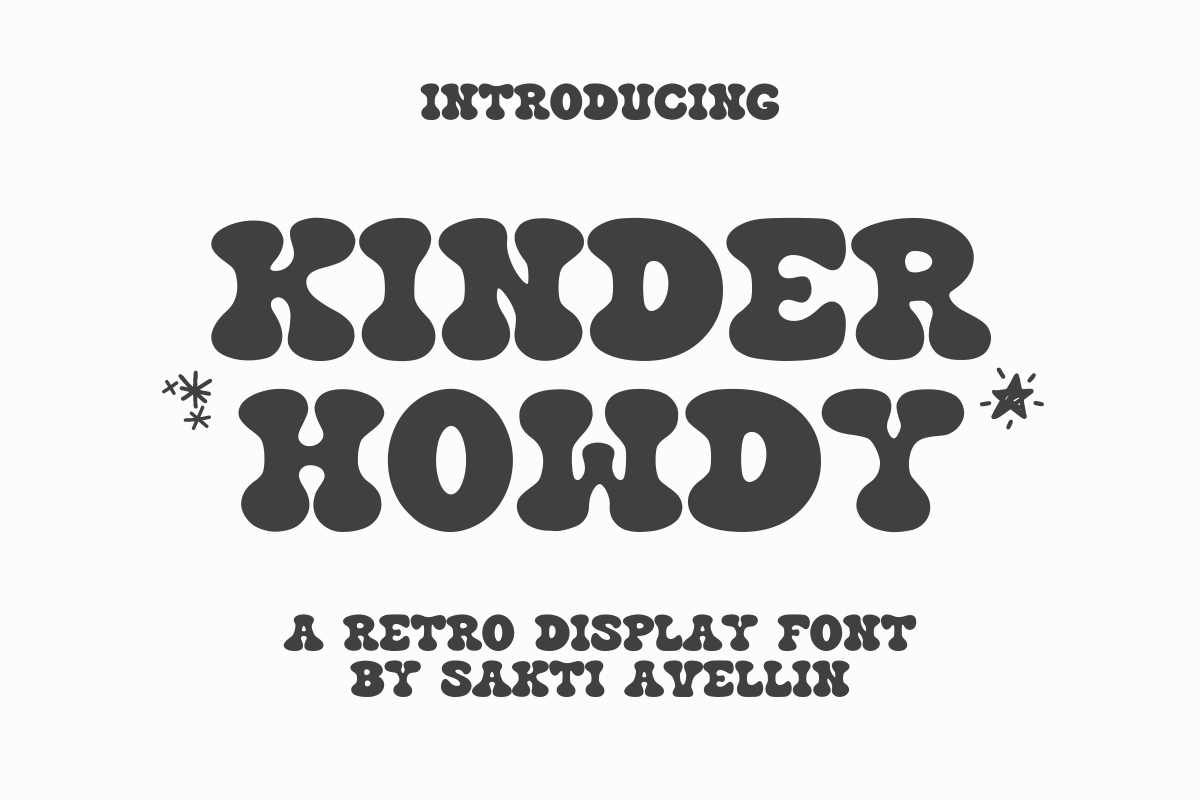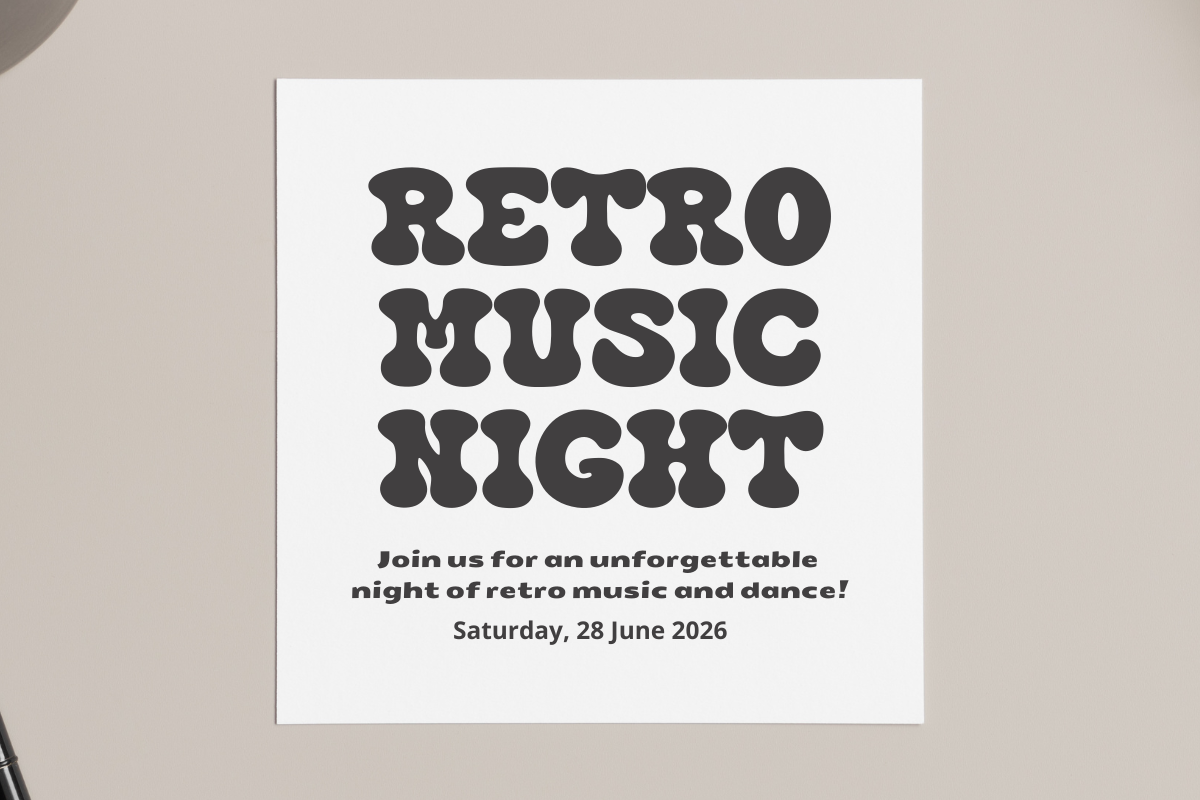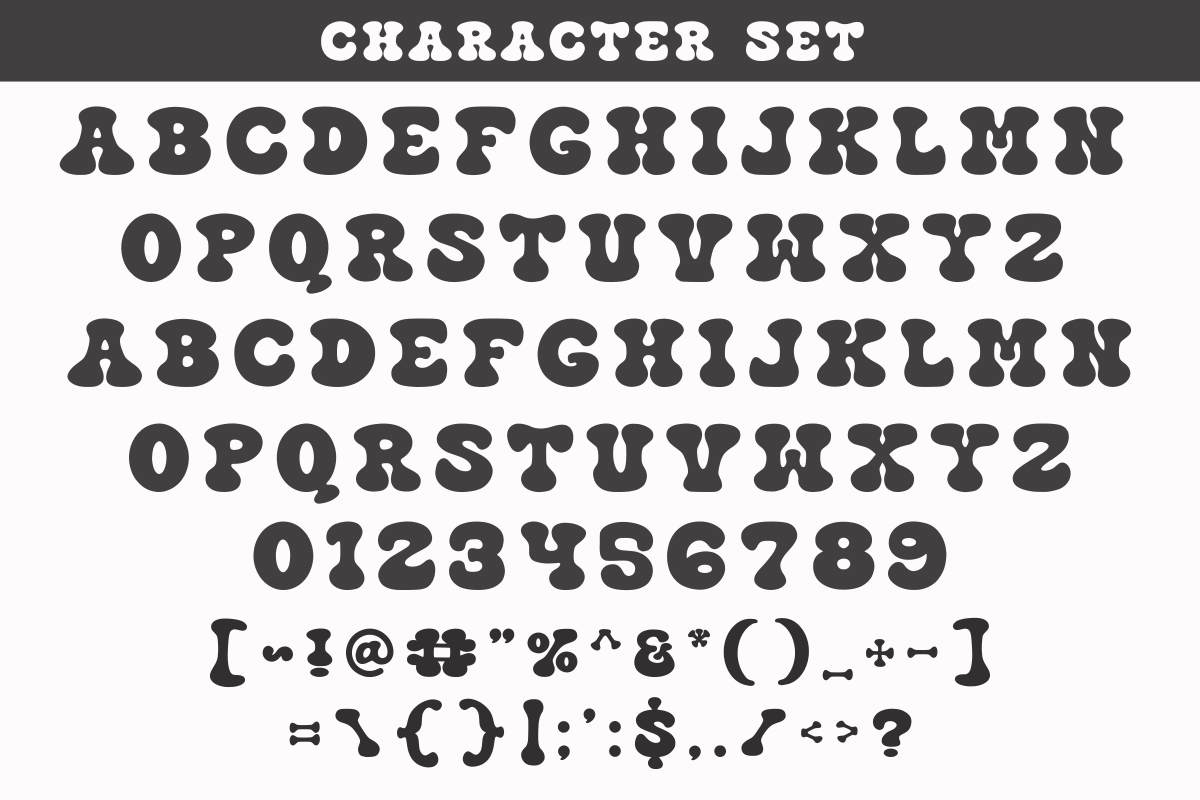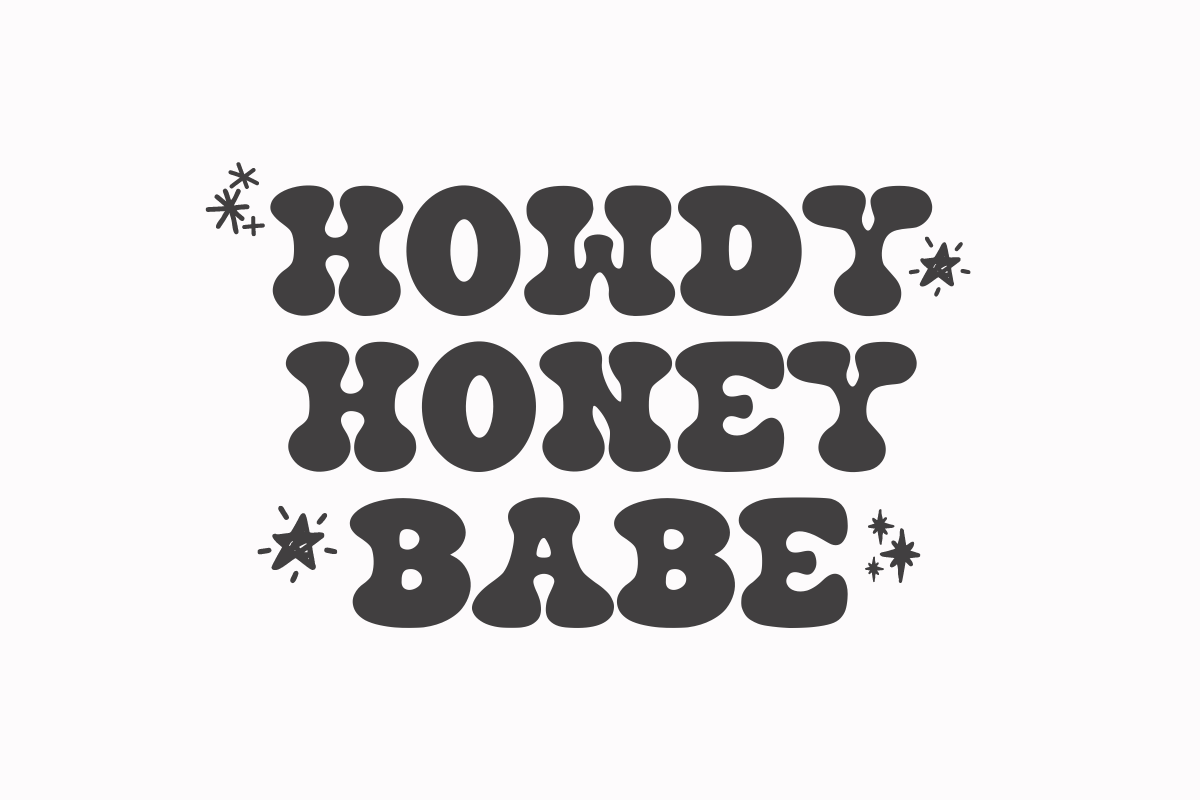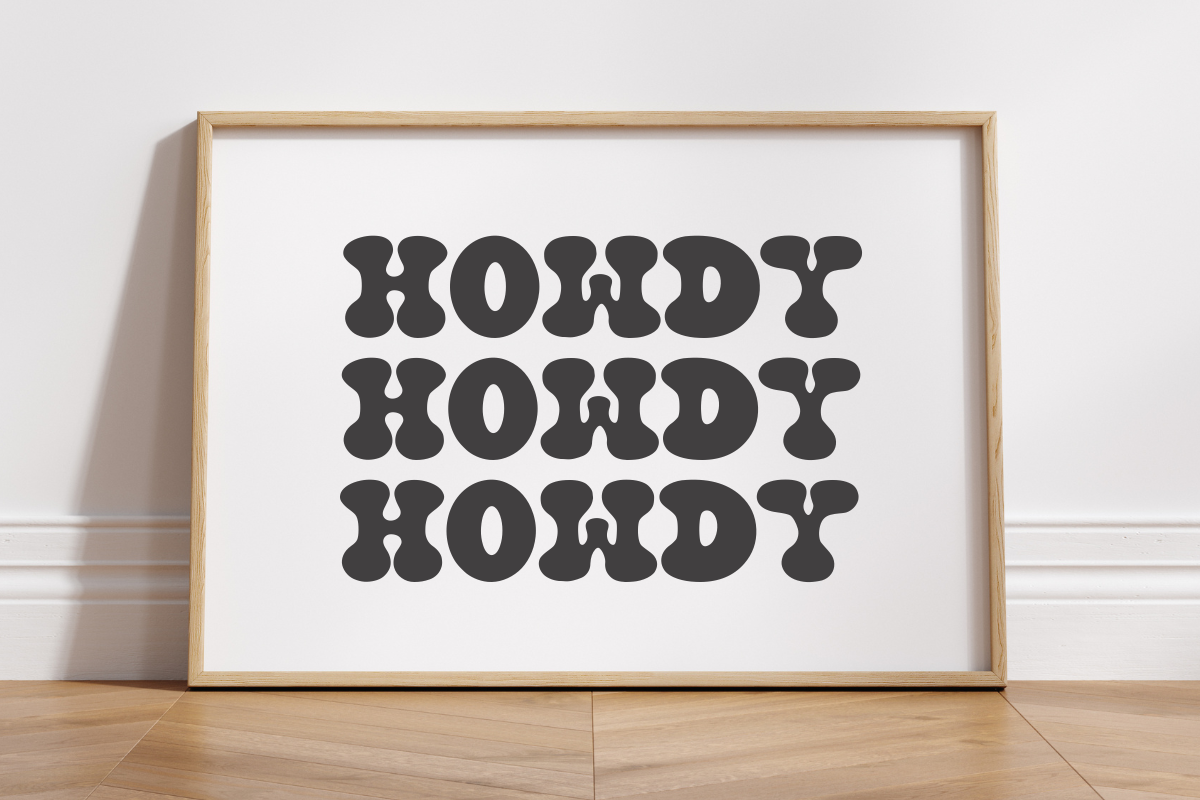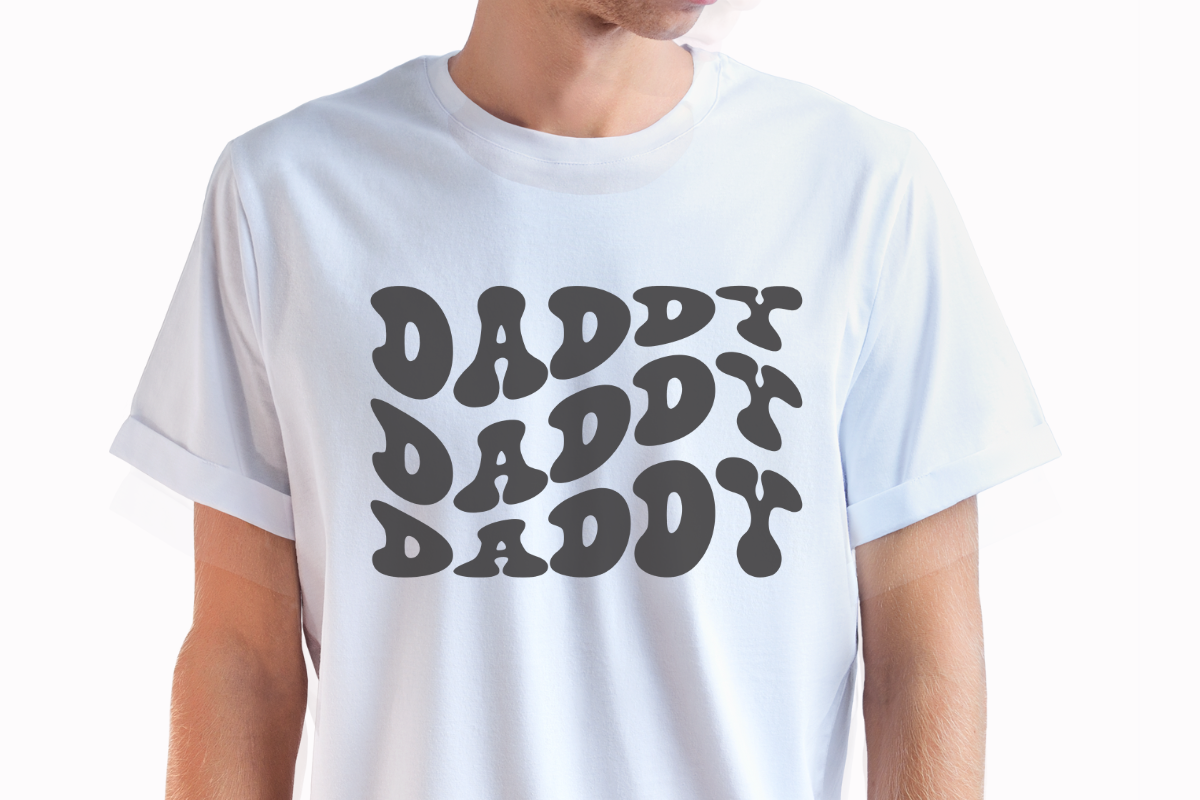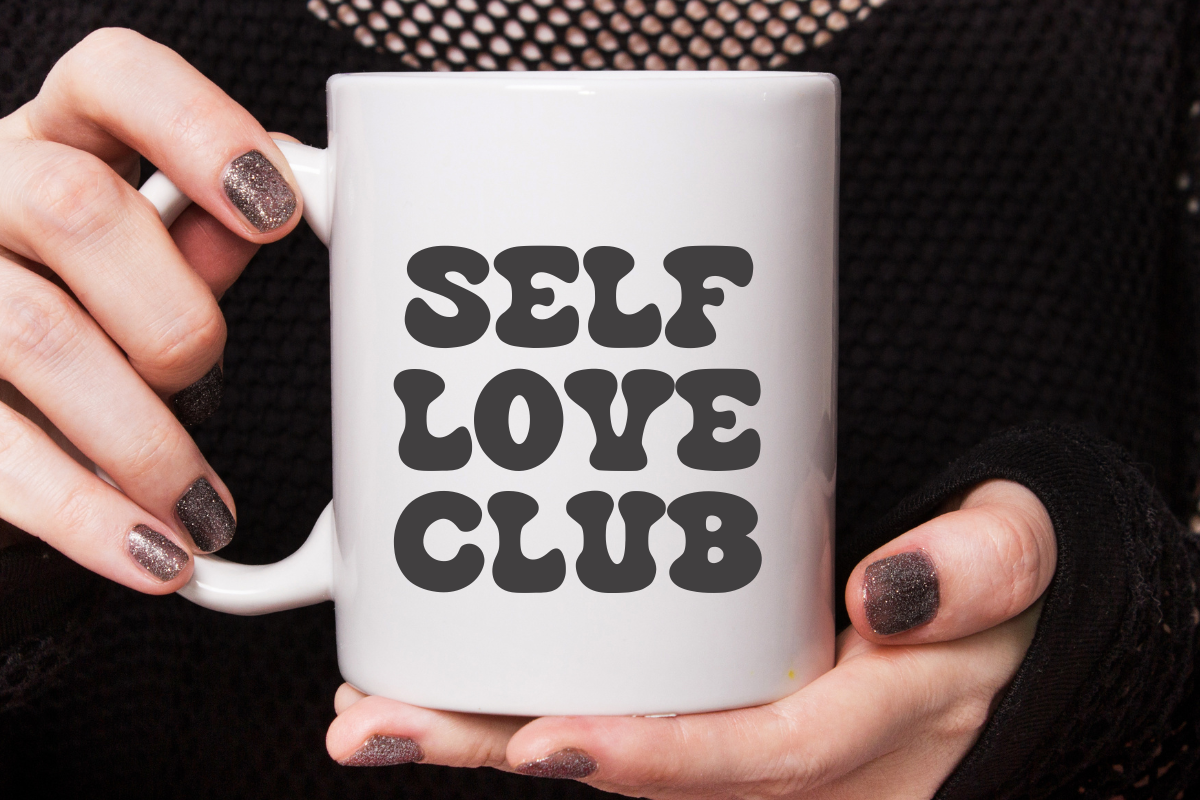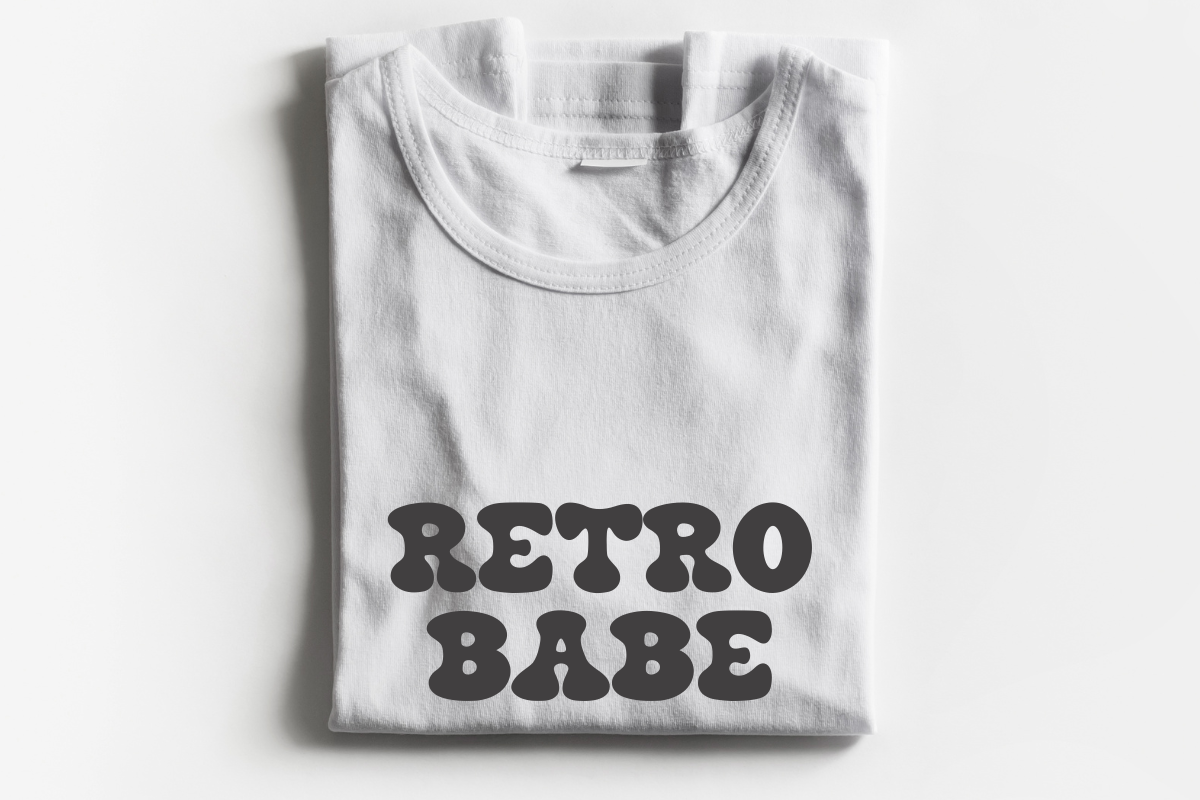
Kinder Howdy - Retro Display Font
Kinder Howdy is a bold, high-impact retro display font designed by Sakti Avellin to bring a fun, nostalgic energy to your creative projects. This chunky groovy typeface features thick, rounded letterforms with a playful vintage bounce, making it essential for retro branding, vibrant kids' apparel, western-themed designs, catchy posters, and eye-catching social media graphics. Its friendly and high-impact style ensures it stands out as a powerful decorative font for headlines and product packaging, perfect for designers seeking a mix of 70s charm and modern aesthetic. Elevate your creative work with the unique personality of Kinder Howdy!